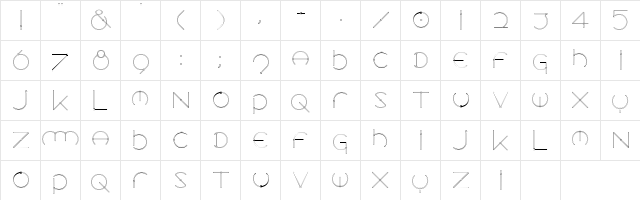
Locus Knots
Design Context for Locus Typeface
Locus is a composed and adaptable typeface that performs quietly and consistently across a wide range of design contexts.
Pro Tip: Pair Locus with a font of contrasting weight or personality to build a more expressive typographic hierarchy.